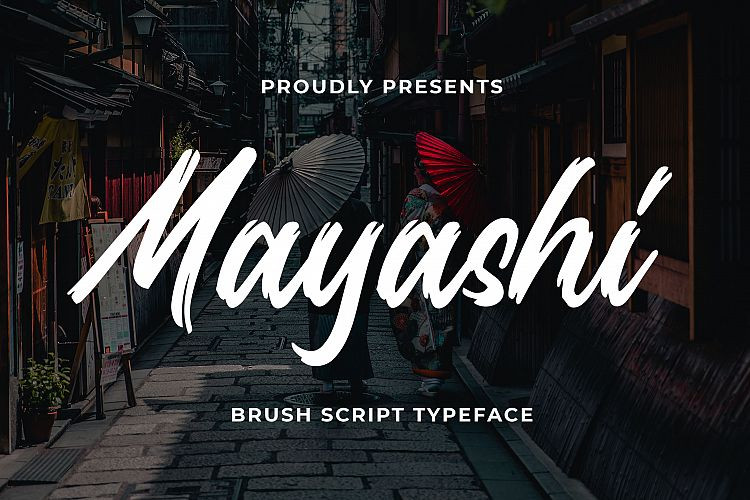
Mayashi Font
Introducing a new Handbrush typeface called Mayashi Brush Script Typeface. Mayashi good for signature, logotype, poster, social media, book cover, tshirt design, packaging and any more.